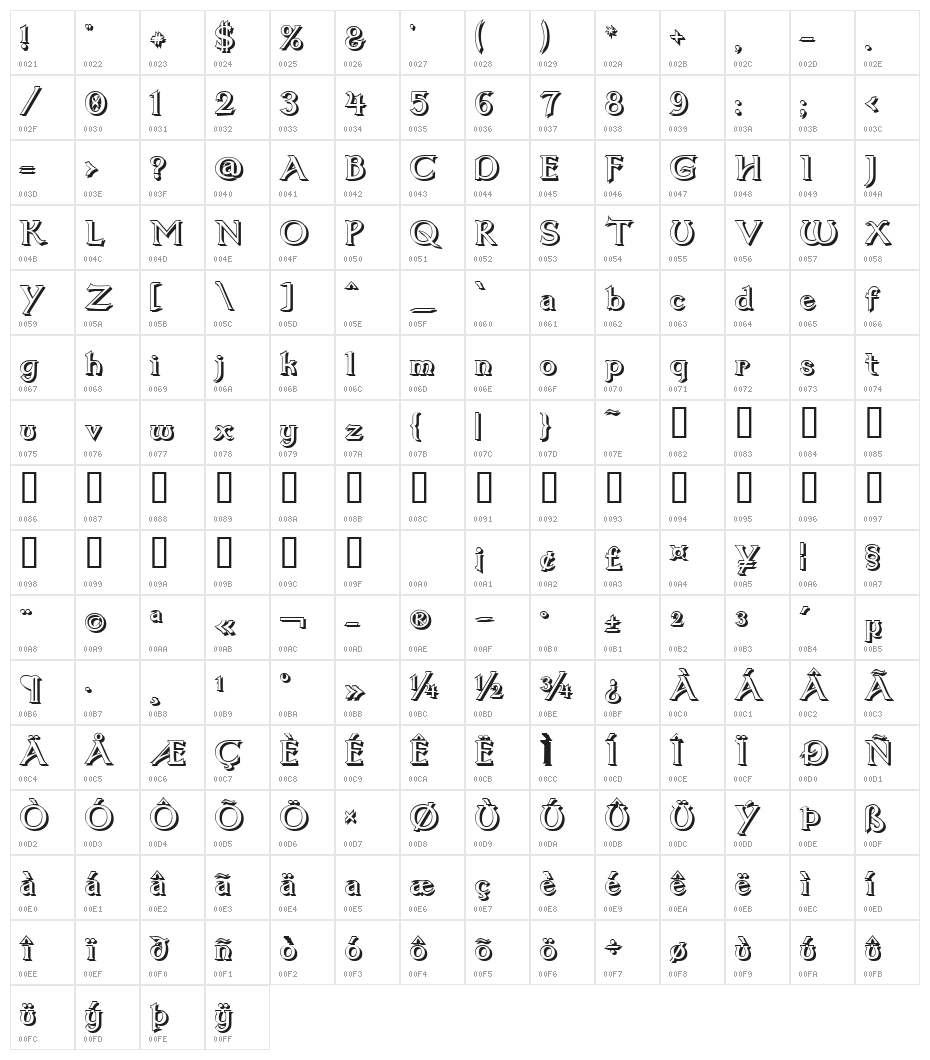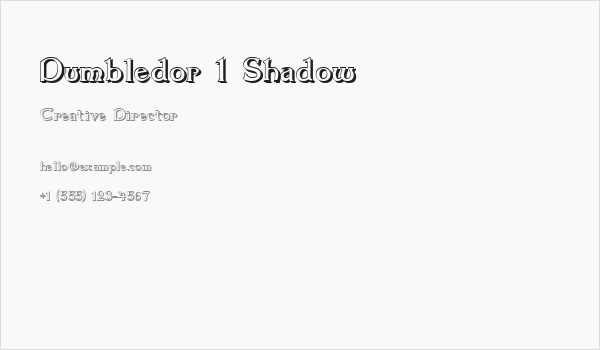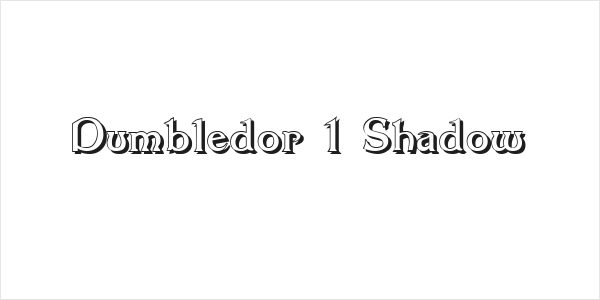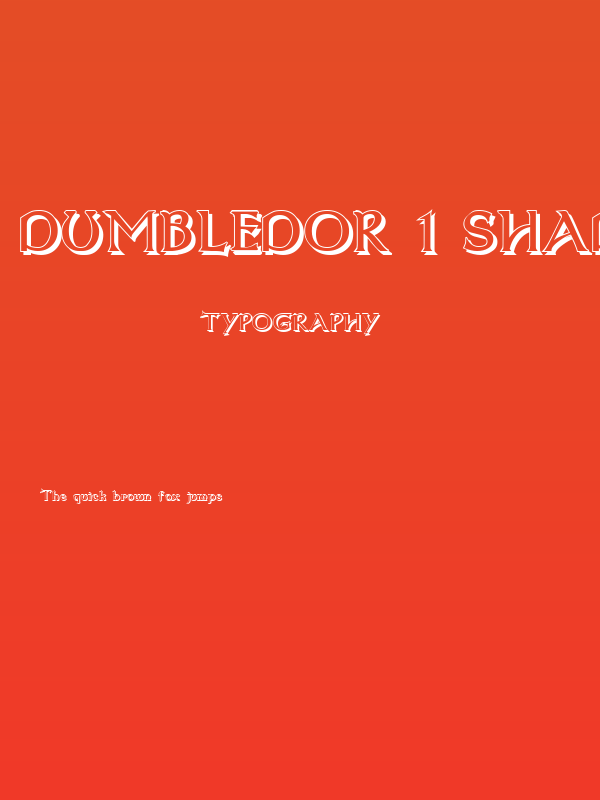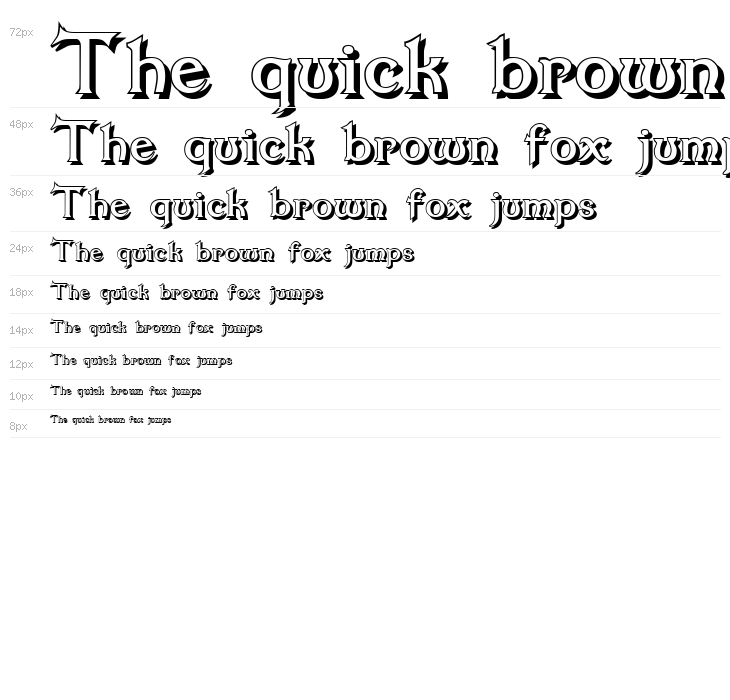
Dumbledor 1 Shadow Font
Dumbledor 1 Shadow Description
This font features a bold and dramatic style with a shadow effect that gives it a three-dimensional appearance. The characters are designed with sharp, angular serifs and a distinct outline that enhances the shadow effect. The uppercase and lowercase letters maintain a consistent style, with the uppercase being slightly more pronounced. Numbers and special characters follow the same design principles, ensuring uniformity across all glyphs. The font's unique style makes it suitable for eye-catching designs where a touch of elegance and drama is desired.
| Proposed Projects | Ideal for book covers, movie posters, fantasy-themed designs, and branding that requires a touch of elegance and drama. |